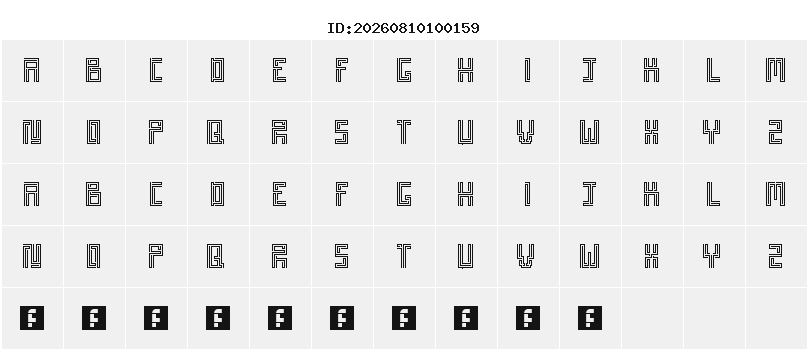
PATATARTINER Preview
• Font Name: PATATARTINER
• Full Font Name: PATATARTINER Regular
• Designer: ROZAND LAURA
• Description: ‚ÄúPATATARTINER‚Äù was built with FontStruct
About PATATARTINER.ttf
PATATARTINER.ttf is a modern, elegant sans-serif font designed for ultimate readability and visual harmony. Perfect for branding, headlines, web design, and print materials.